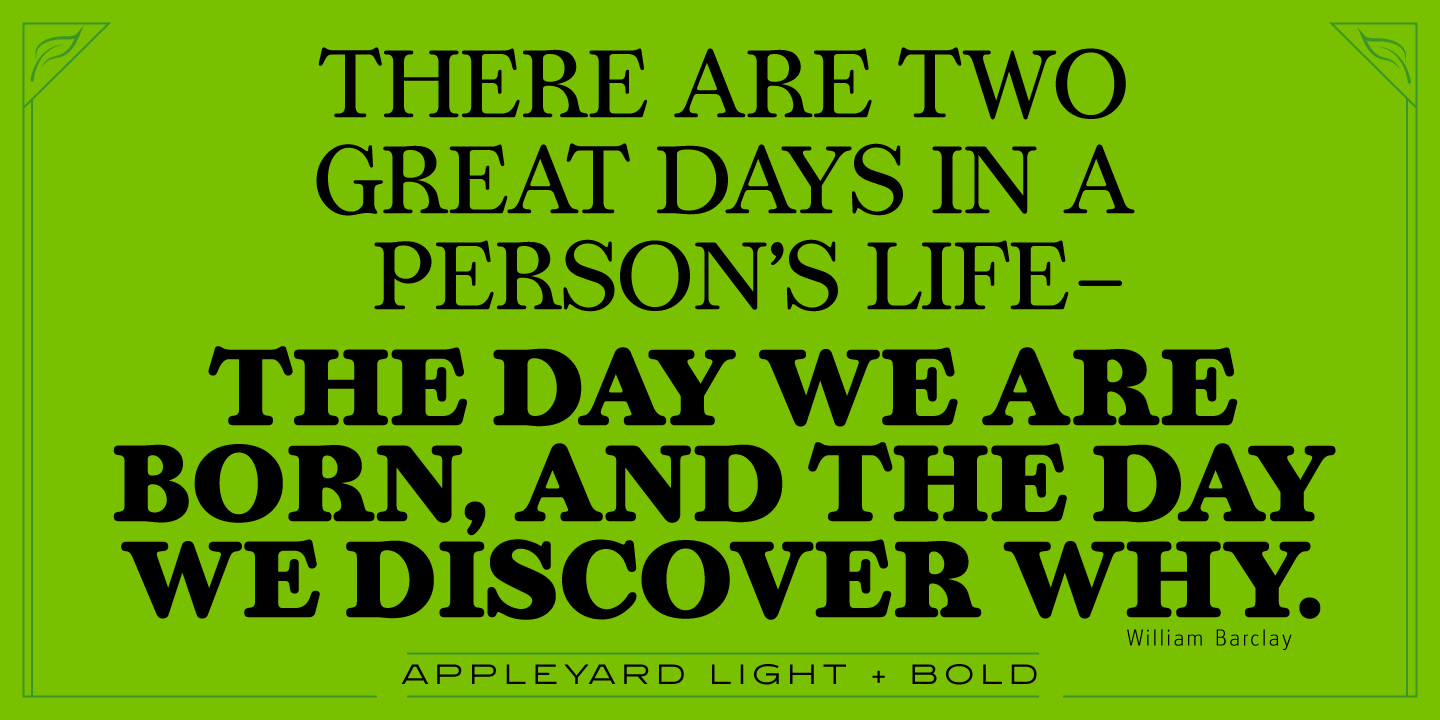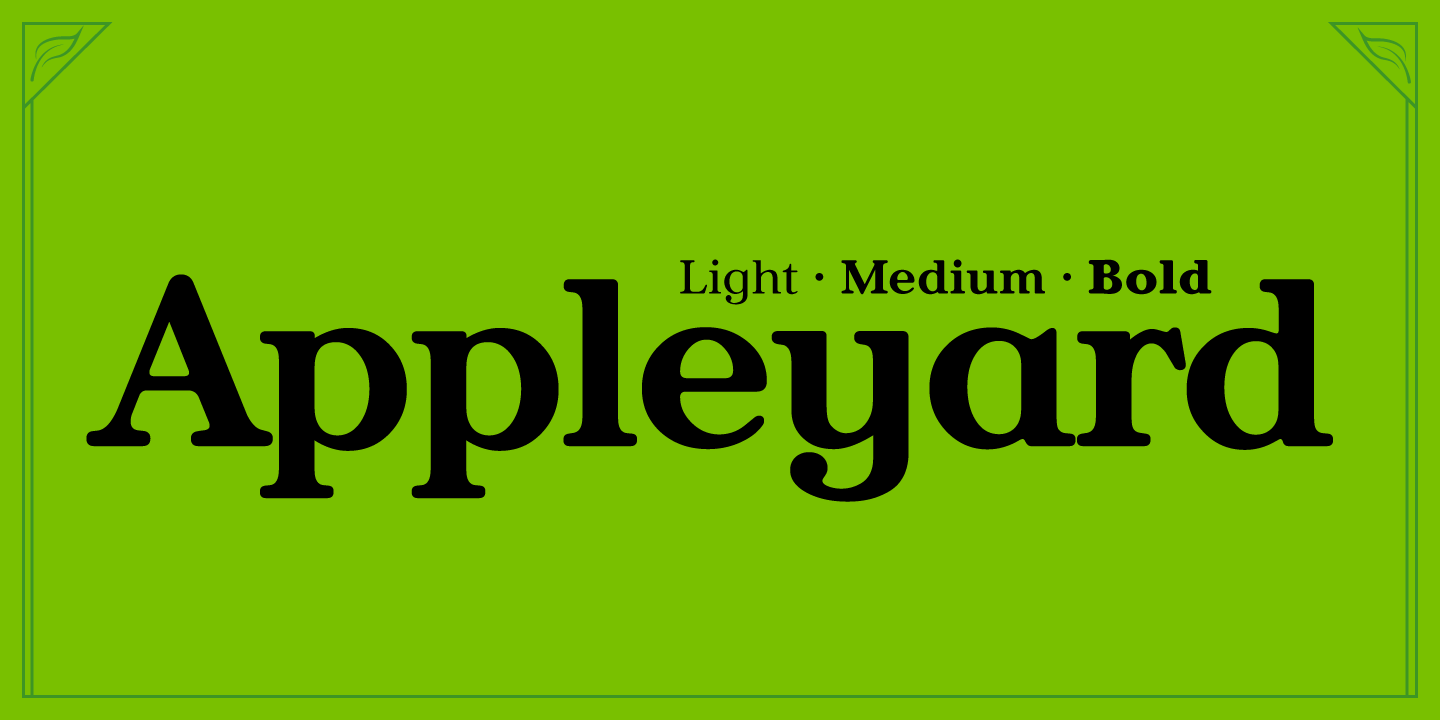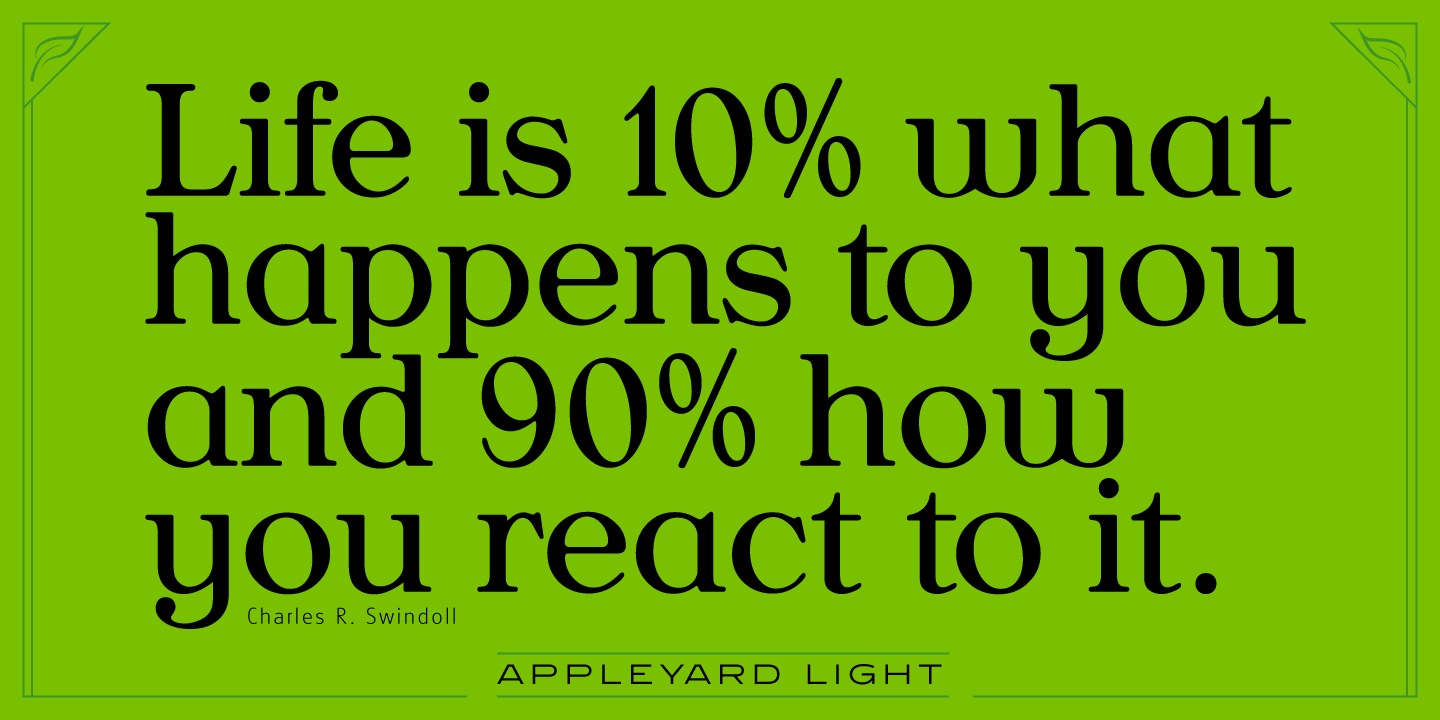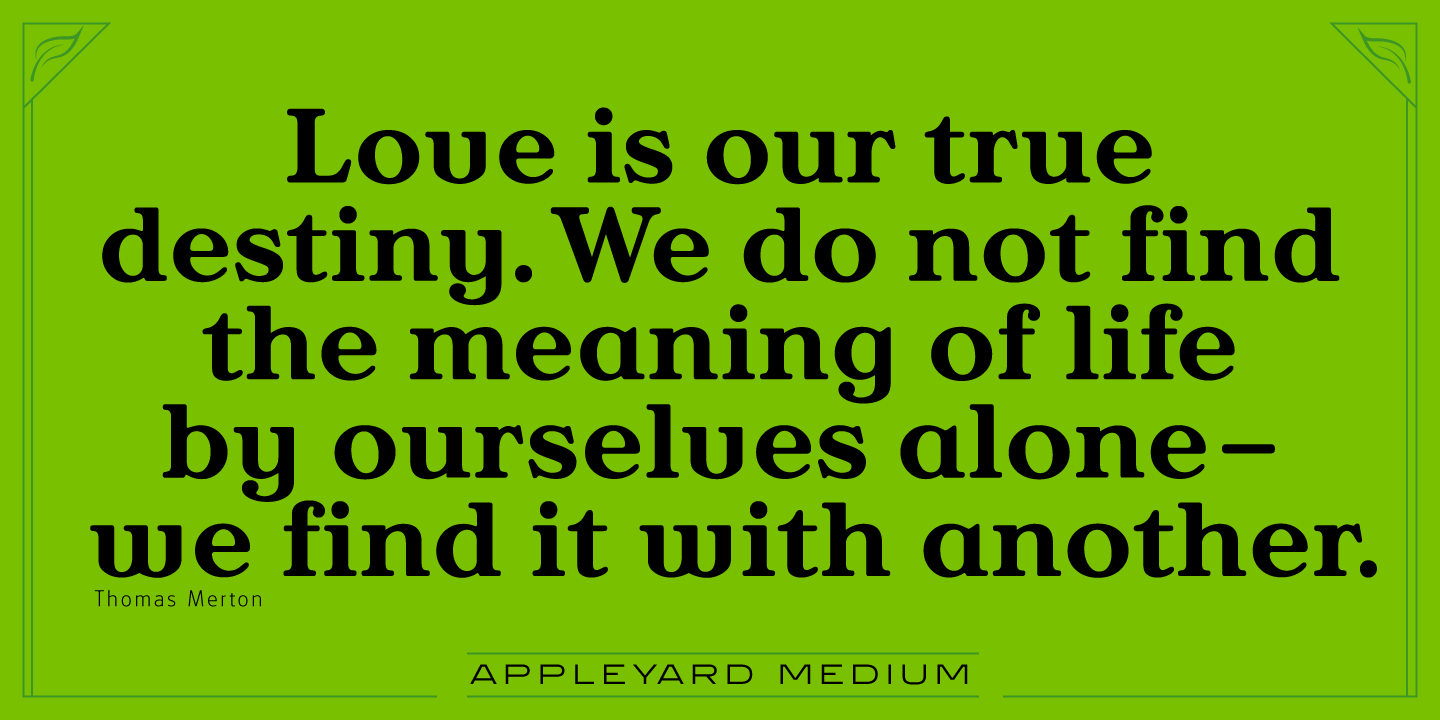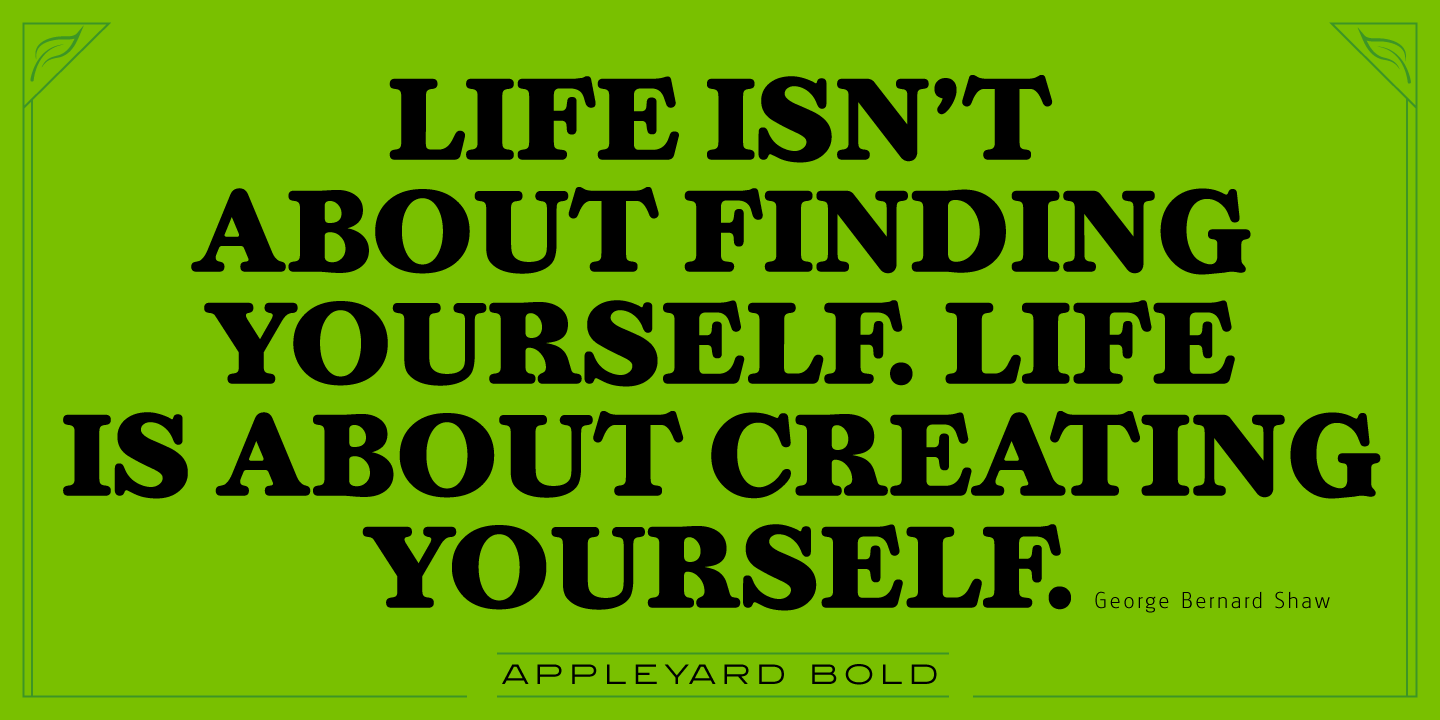
Appleyard
From Red Rooster Collection
Appleyard is a transitional serif font family that combines the elements of a modern serif and old-style typefaces. It is loosely based on an old Monotype design called ‘Prumyslava.’ Appleyard was designed by A. Pat Hickson (P&P Hickson) exclusively for the Red Rooster Collection and produced by Steve Jackaman (ITF) in 1992. The typeface’s rounded serifs give it a sophisticated, warm, and friendly feel; it excels in projects that need a delicate touch. Appleyard was designed with legibility in mind, and is ideal in children’s books and for young readers.